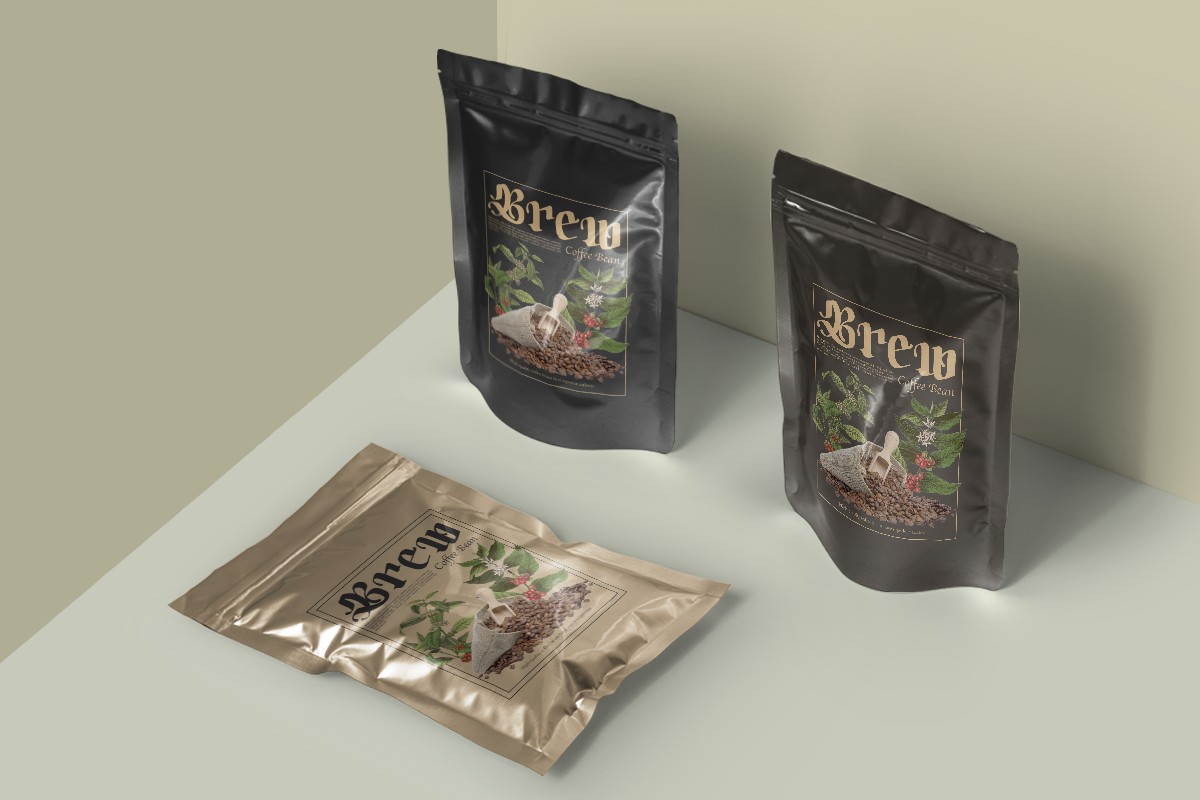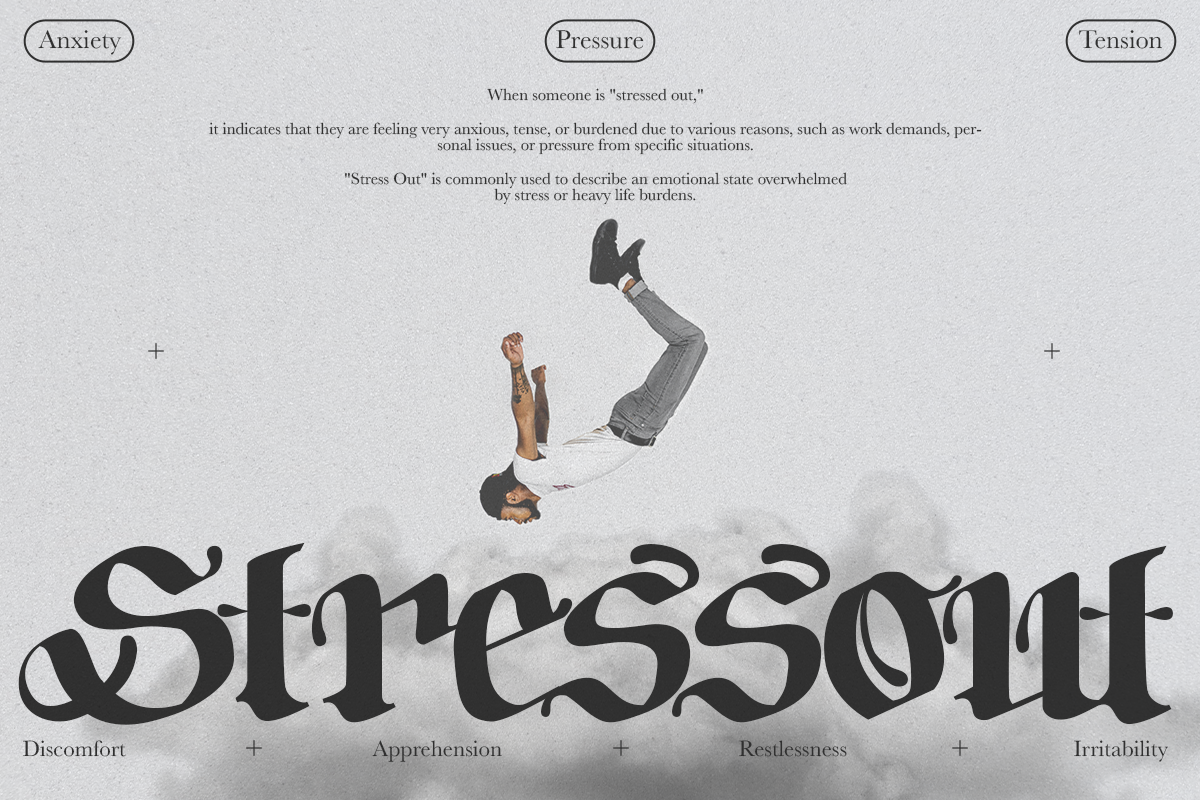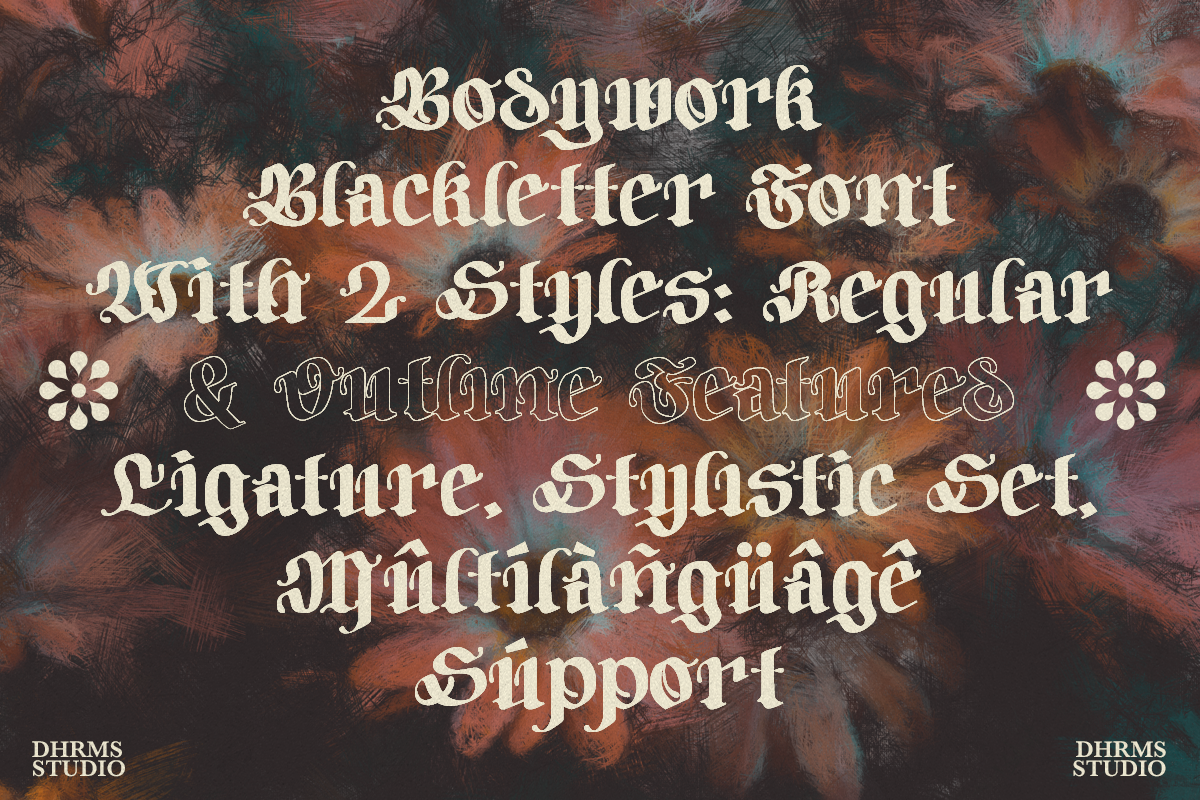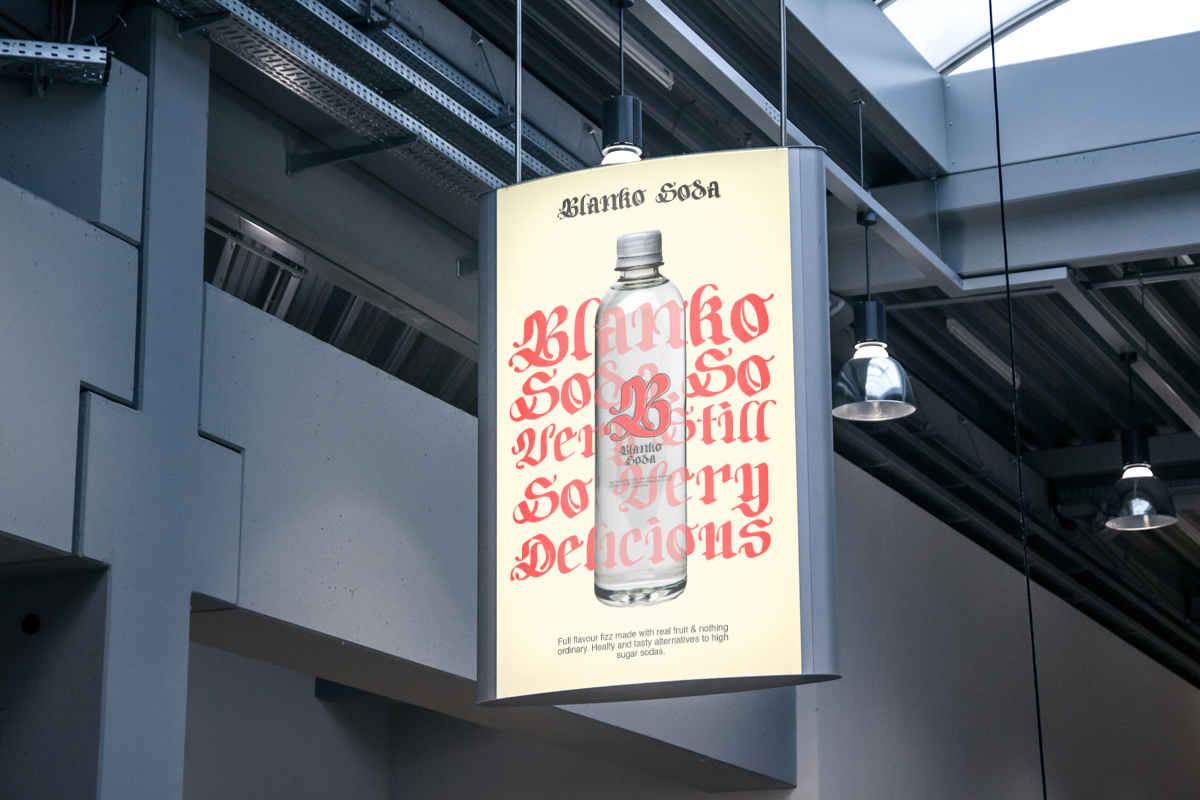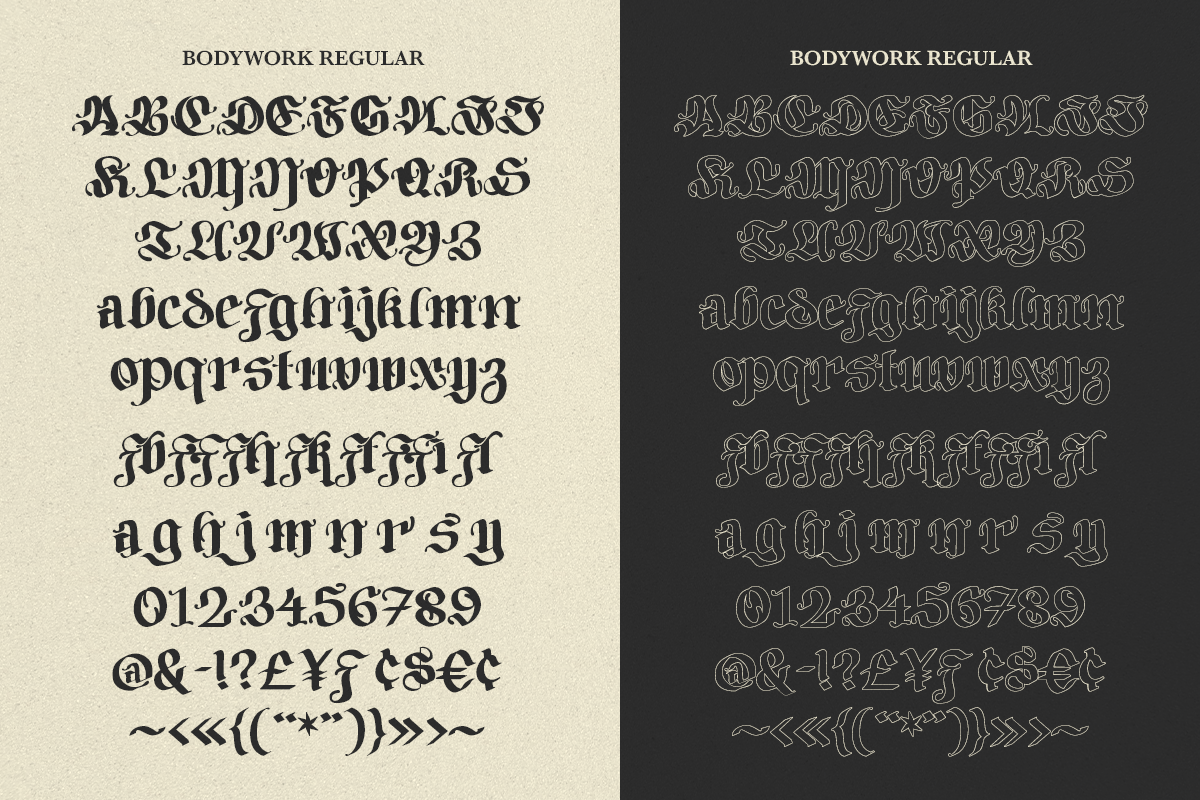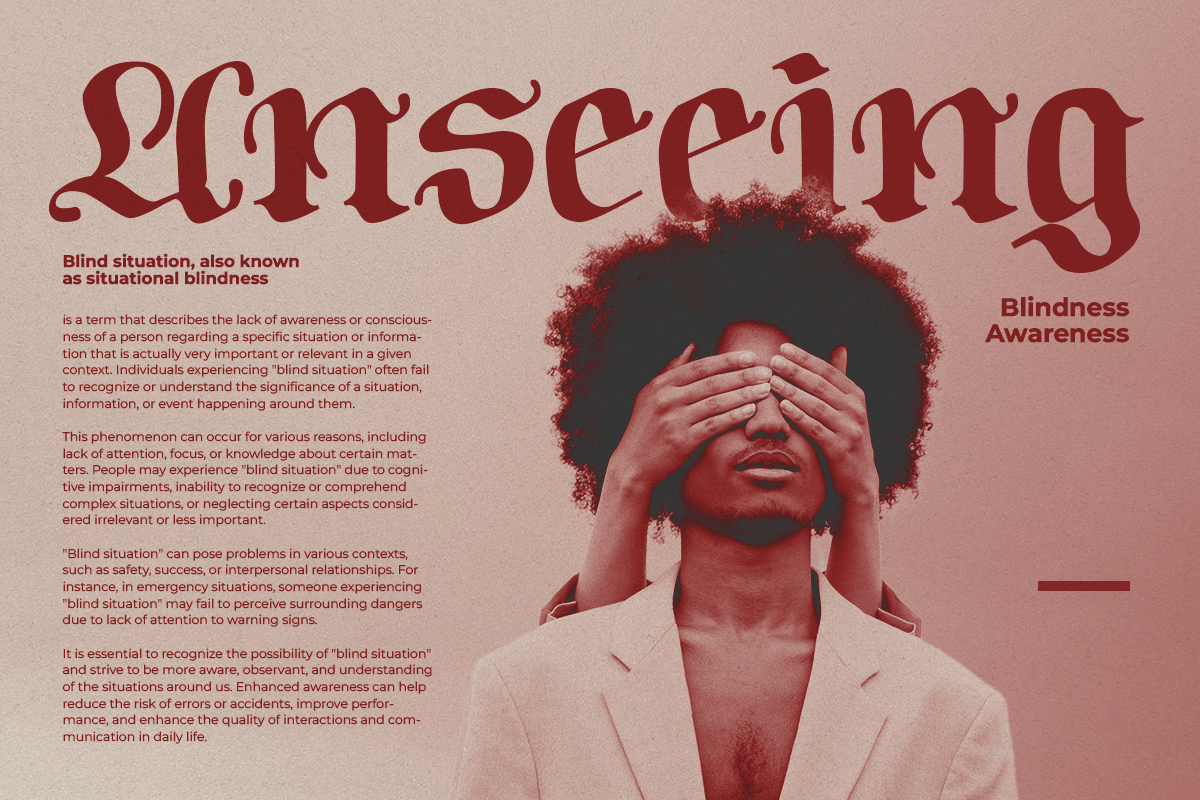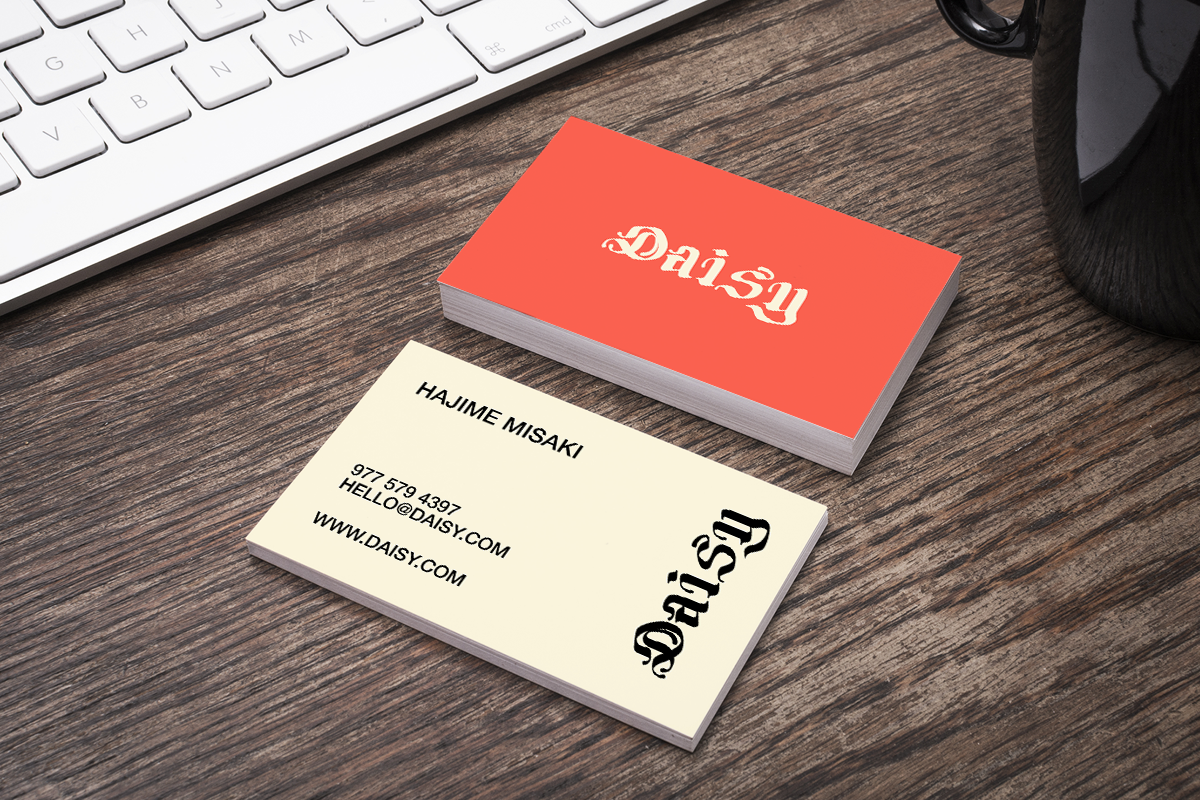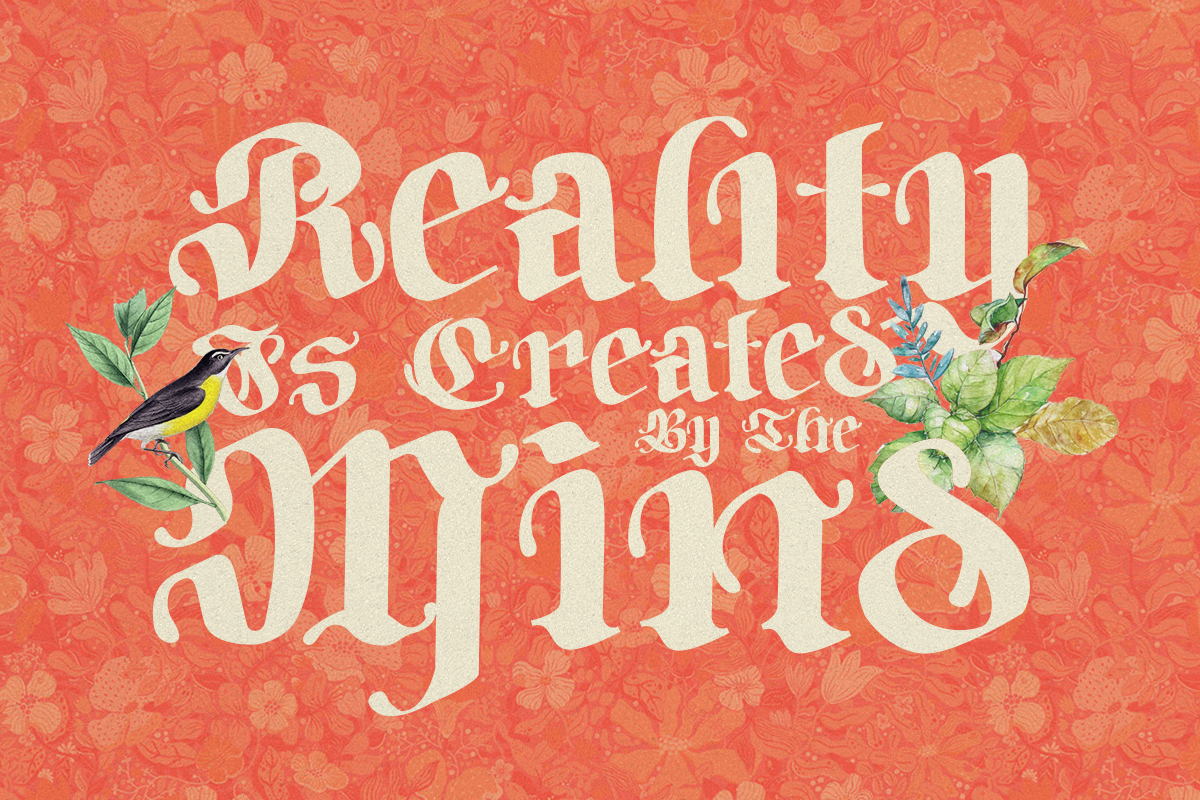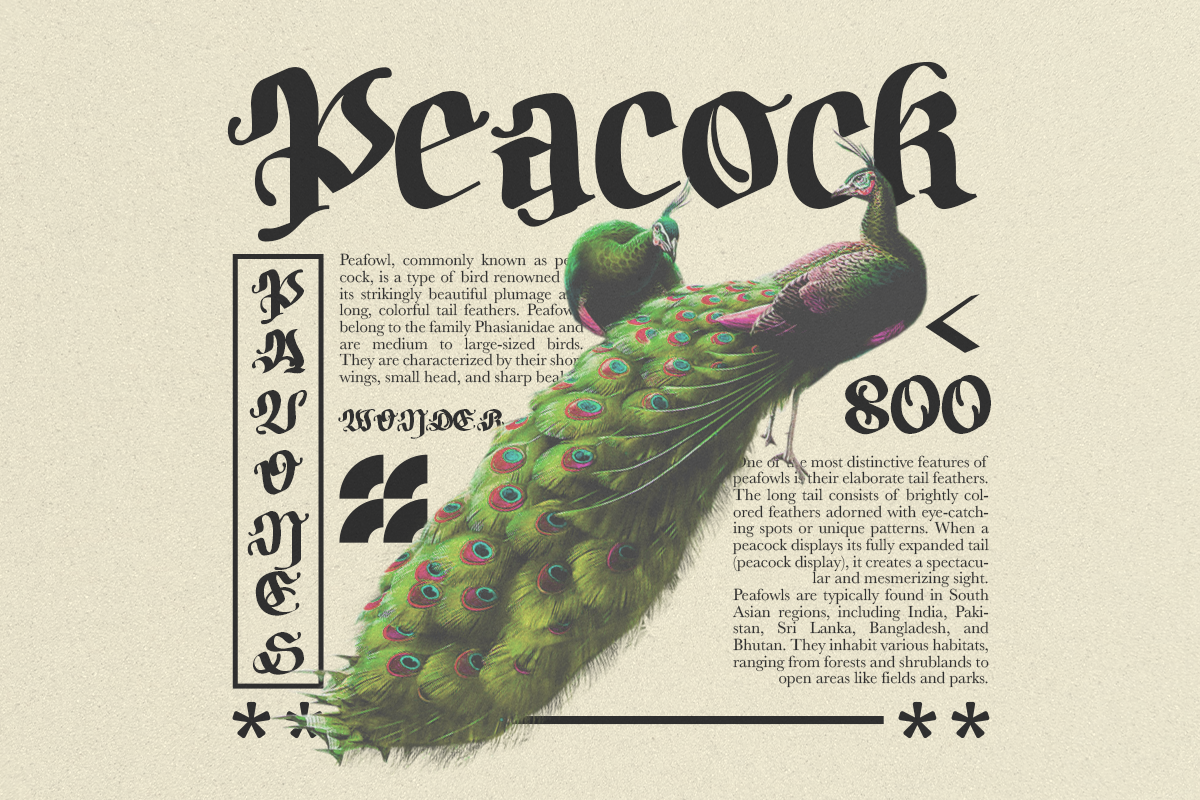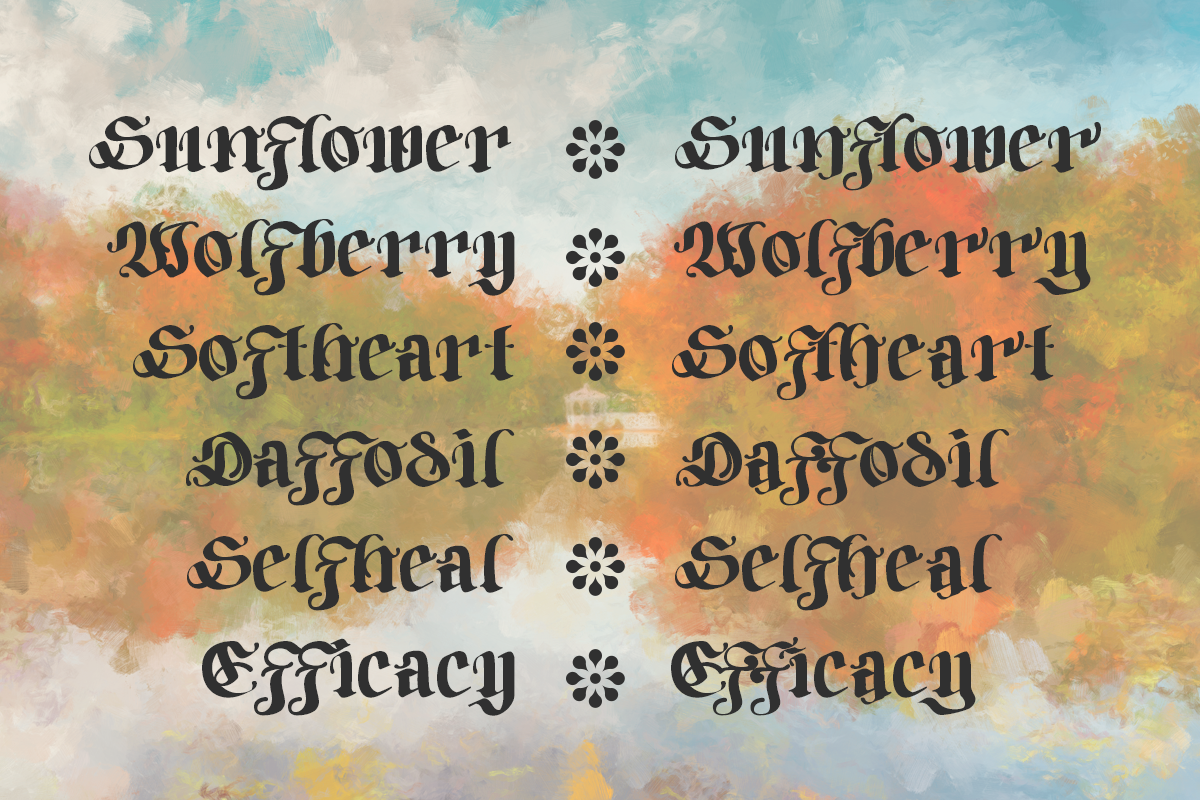
Bodywork - Modern Blackletter
Say hello to Bodywork! A modern blackletter with groovy touch!
Bodywork - A black letter font in a groovy modern style with flower petal-inspired curves and modern style. This font is equipped with several OpenType features such as Ligatures, Alternative Character / Stylistic Sets, and multi-language support.
Bodywork - has 2 regular and outline styles that complement your design needs, and this font is designed to be able to combine with other fonts. This font is perfect for branding, logo design, cover design, books, magazines, apparel designs, headlines, etc.
Have many alternate and ligatures
Unique letterforms